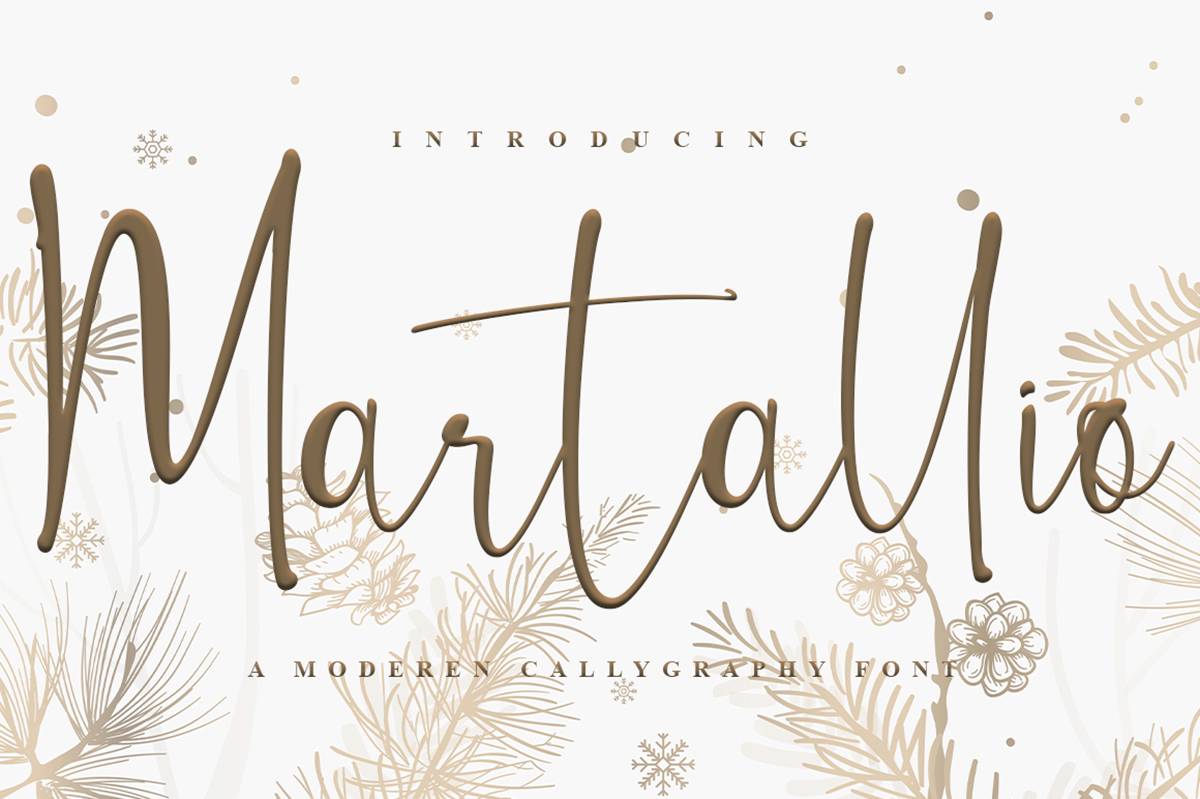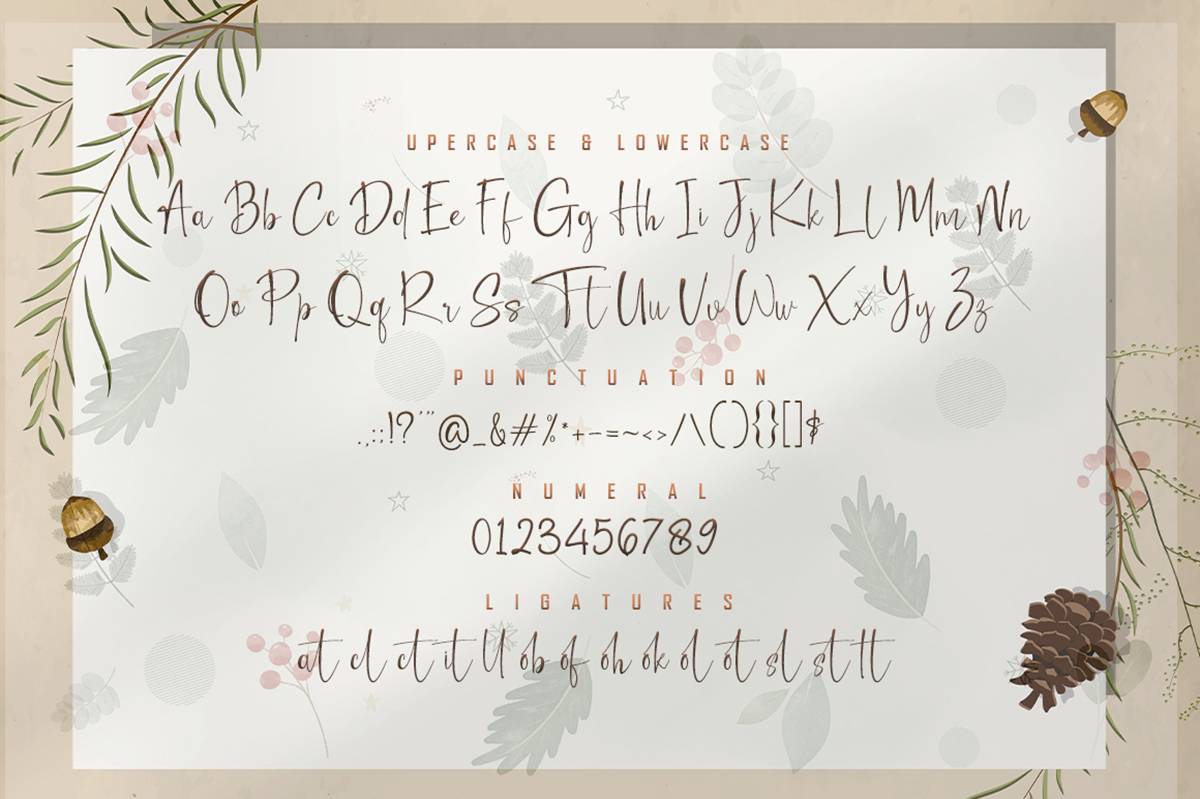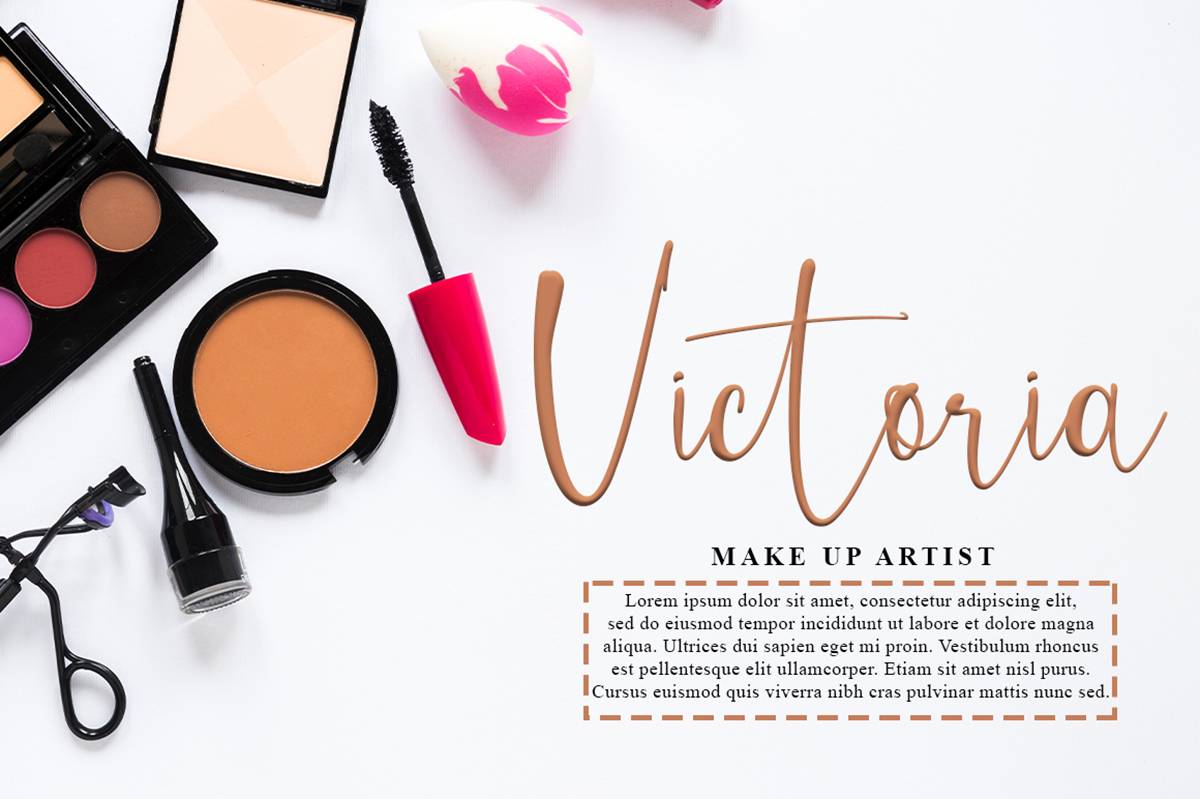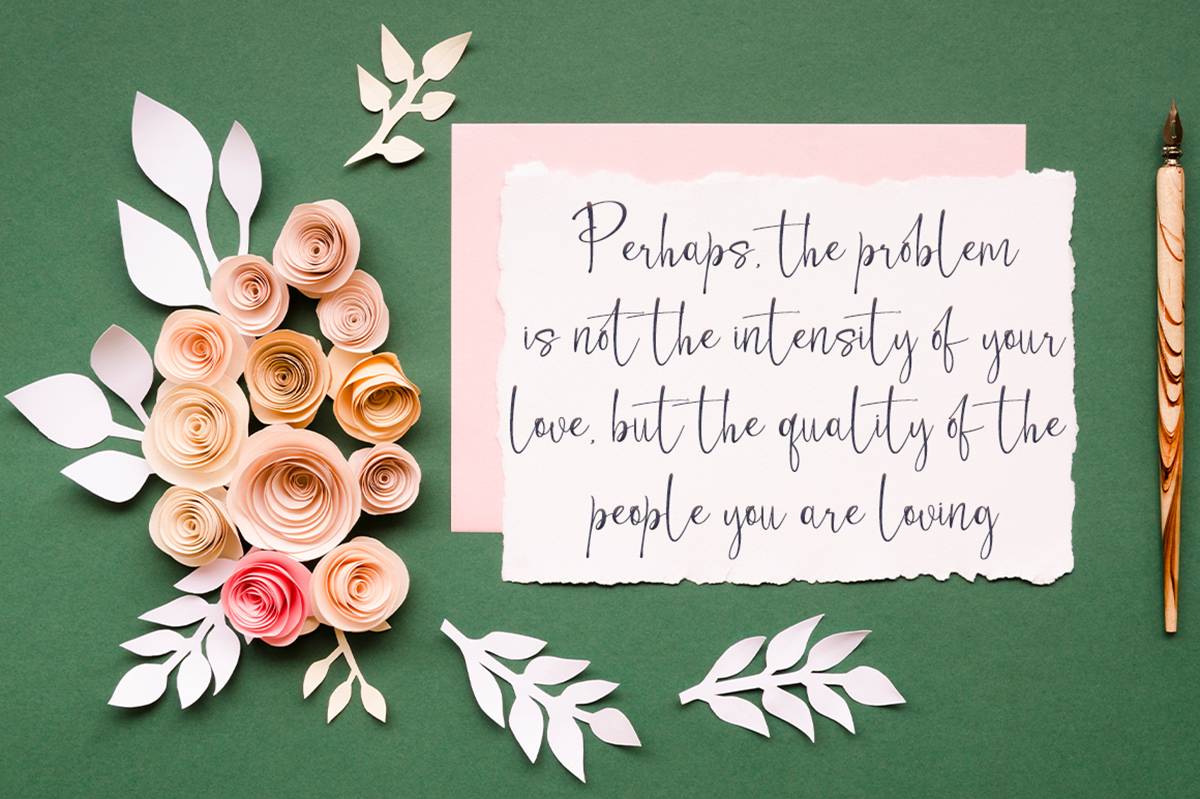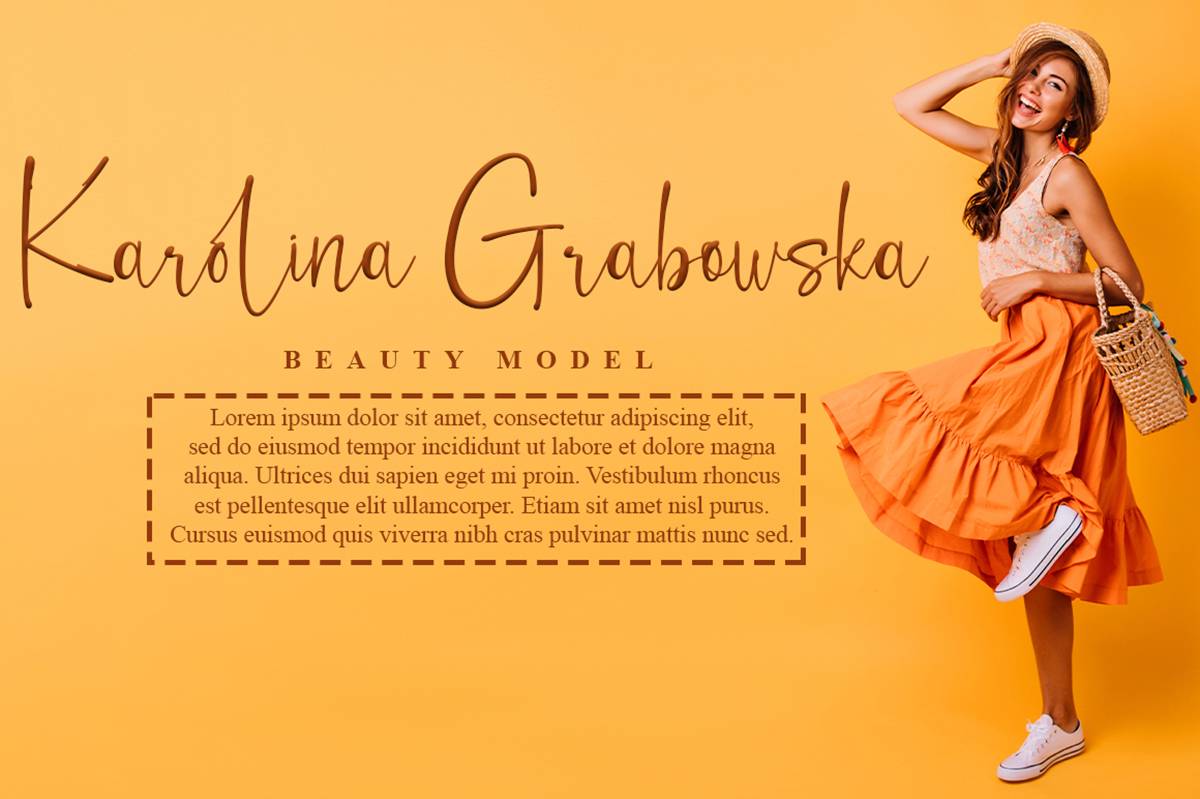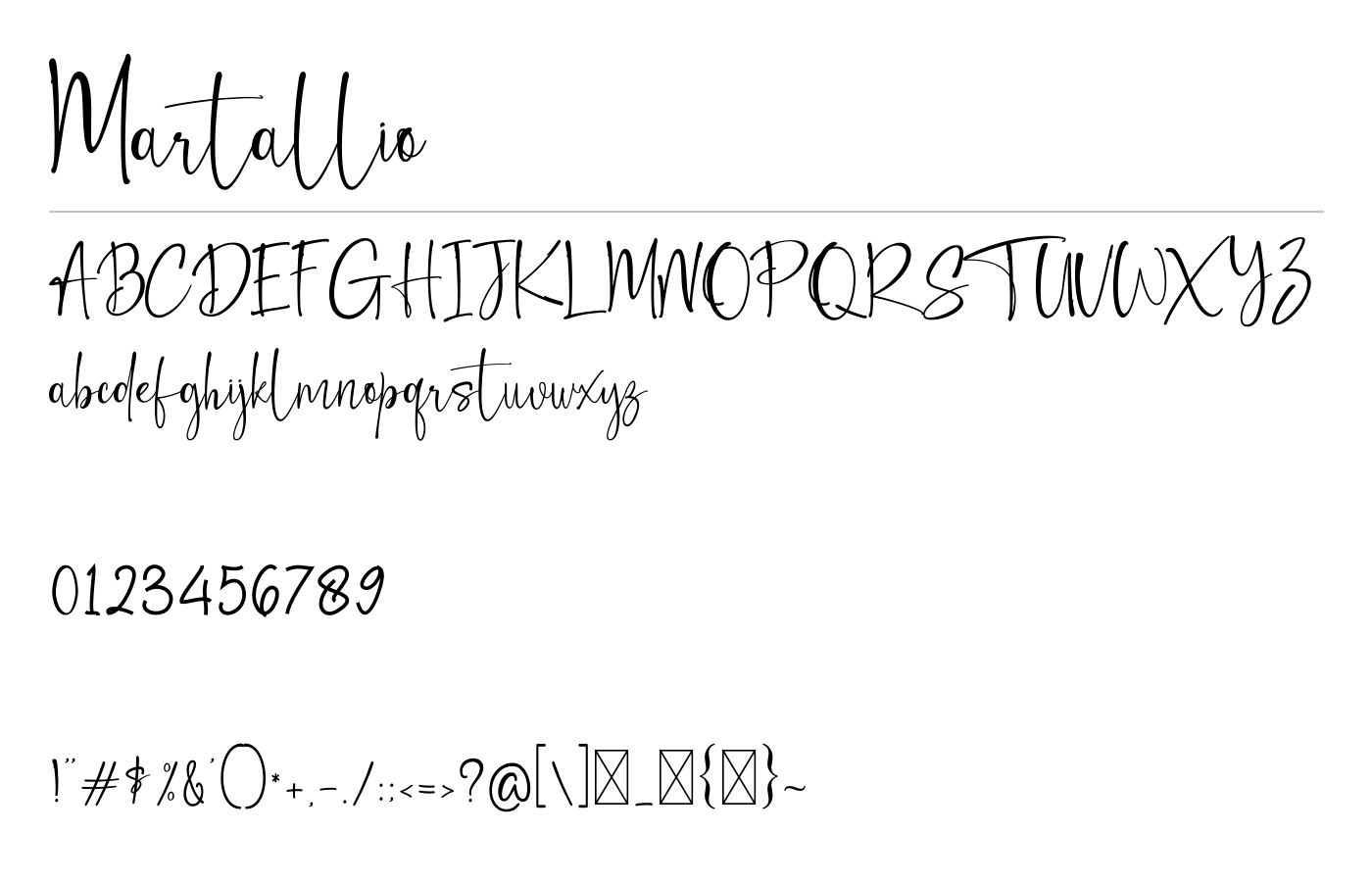
Martallio is a delicate, handwritten script font with a tall, narrow structure and a playful yet elegant feel. Its slender, flowing letterforms with varied stroke widths create a personal and artistic touch, making it ideal for invitations, branding, and creative projects that require a charming, informal style. This font works best in headlines and display uses where its unique personality can truly shine.
Martallio Font
About Martallio Font